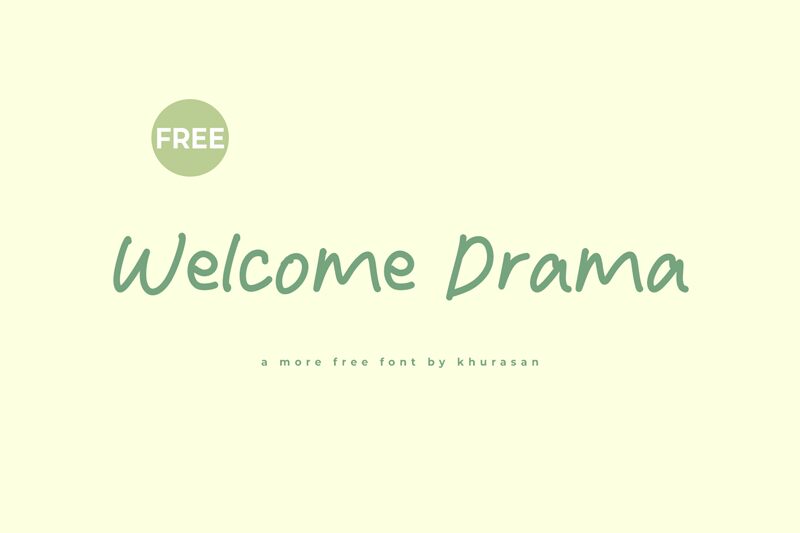
Welcome Drama
Welcome Drama, a captivating handwritten font designed by Khurasan, exudes a warm, organic charm that immediately invites the viewer in. The fluid, script-like strokes convey a sense of effortless elegance, while the subtle variations in letter forms add a delightful touch of personality to any design. This font's distinctive aesthetic seamlessly blends the charm of handcrafted calligraphy with a modern, approachable flair, making it a versatile choice for a wide range of projects.
The expressive, lively nature of Welcome Drama lends itself beautifully to branding and marketing materials, where its captivating presence can elevate the visual identity and leave a lasting impression. Its adaptability also shines in editorial designs, invitations, and event-based collateral, where the font's warmth and character can elevate the overall aesthetic. Whether crafting engaging headlines, crafting personalized stationery, or adding a touch of handcrafted charm to digital interfaces, Welcome Drama by Khurasan is a font that truly celebrates the beauty of the written word.